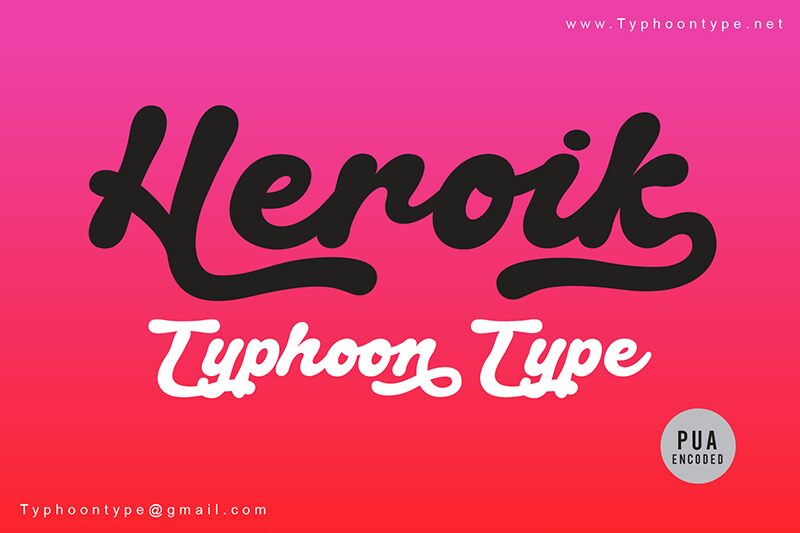
Heroik is a bold, handwritten font designed by Typhoon Type - Suthi Srisopha. With its unique and expressive style, this font is perfect for adding a touch of personality to various creative projects. The bold weight ensures that your text stands out and commands attention. Whether you're designing eye-catching logos, creating striking posters, or crafting captivating social media graphics, Heroik is the ideal choice to make your content visually appealing and memorable. Its versatility allows it to be used in a diverse range of projects, giving your designs that extra edge they need to shine.